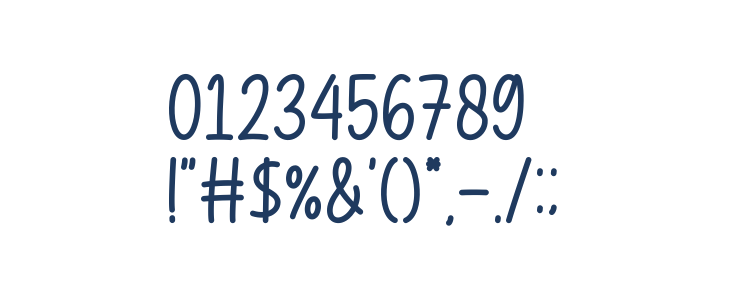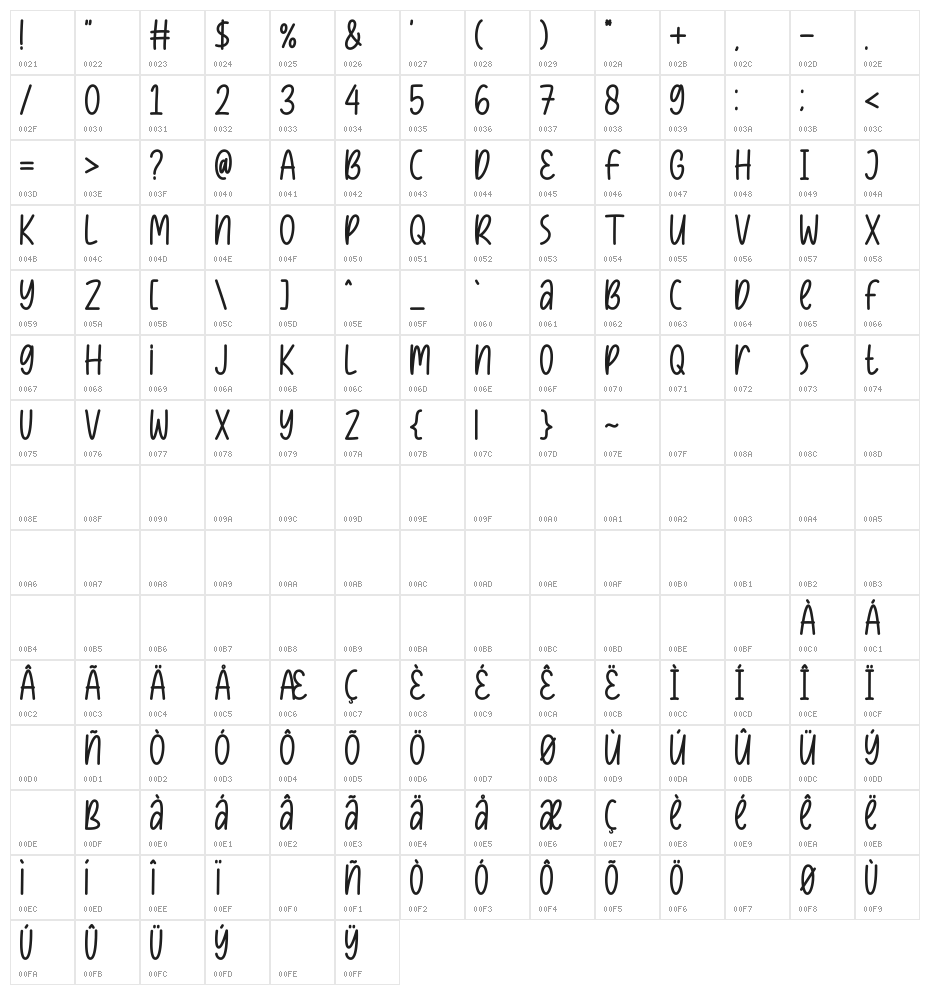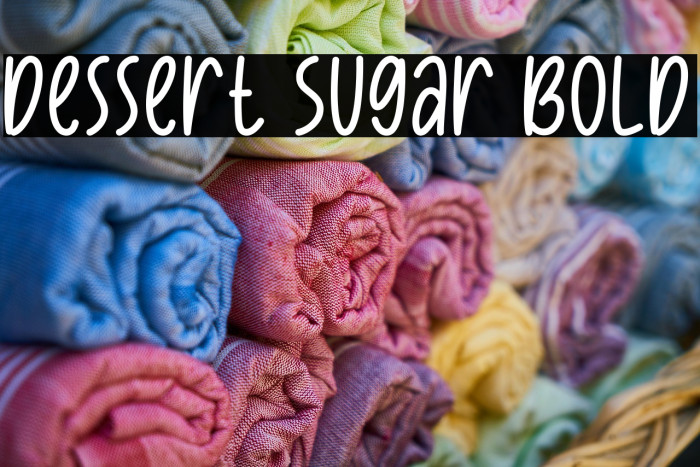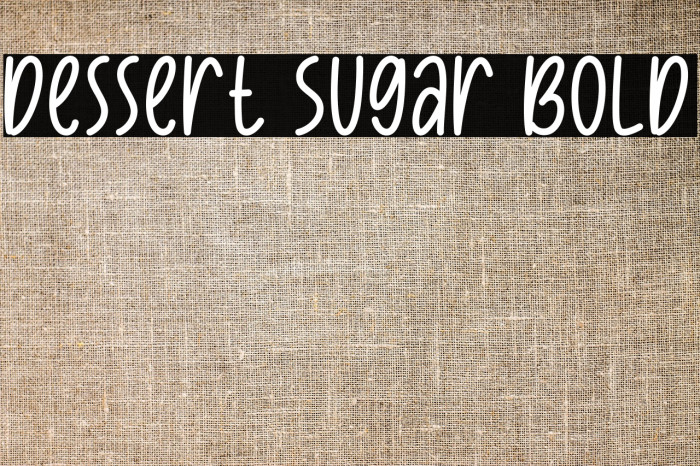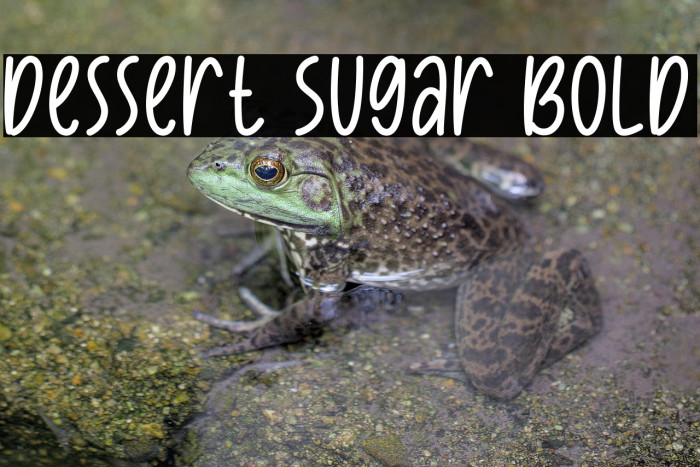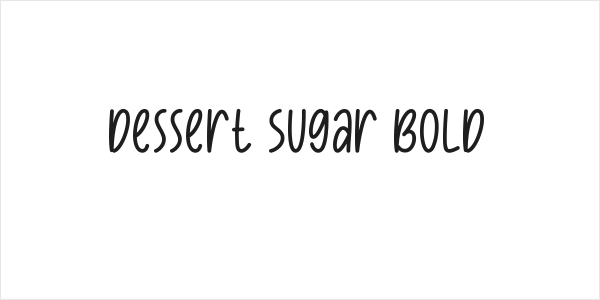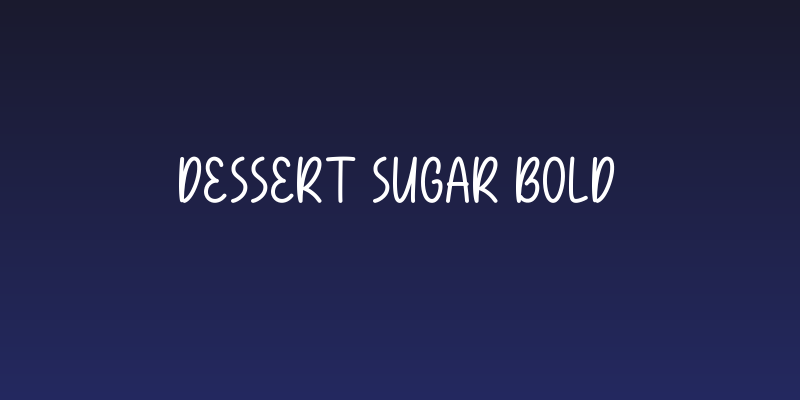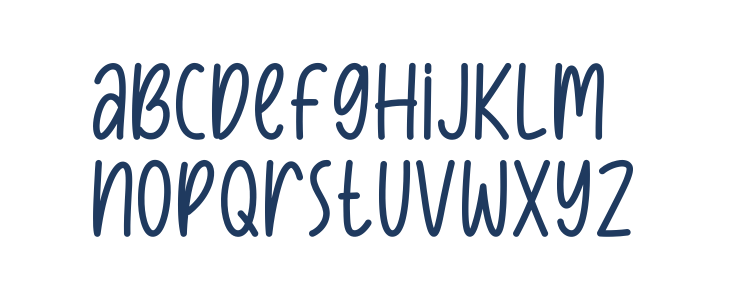
Dessert Sugar Bold Font
Dessert Sugar Bold Description
This playful and energetic font features a handwritten style with bold, rounded strokes that give it a friendly and approachable appearance. The characters are slightly condensed, which adds to its casual and informal vibe. The uppercase and lowercase letters maintain a consistent style, with smooth curves and a uniform weight that enhances readability. The numbers and special characters are designed to match the overall aesthetic, ensuring a cohesive look across all text elements. This font is ideal for projects that require a personal touch, such as invitations, greeting cards, or branding for creative businesses.